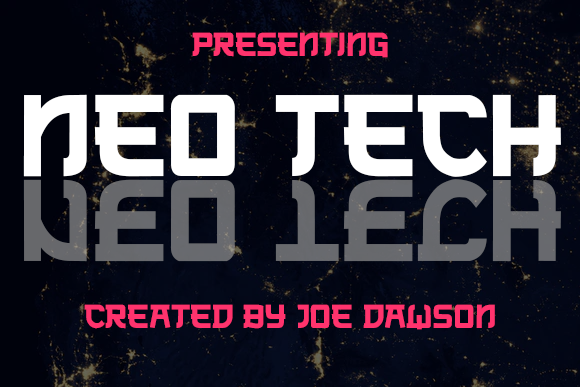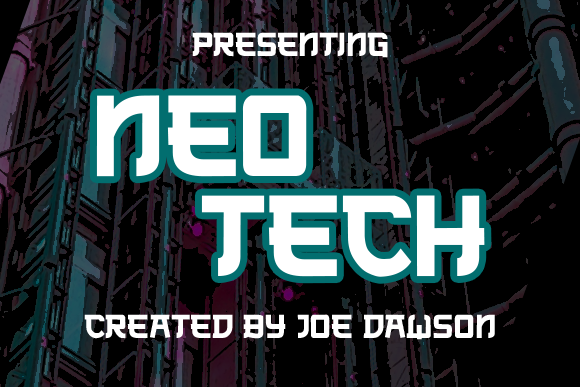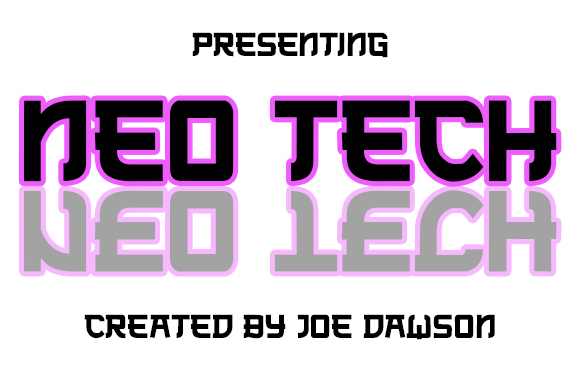
Neo Tech Font
Neo Tech is a modern, Asian-inspired display font. With it’s smooth curves and sharp angles, this font will make your designs stand out.